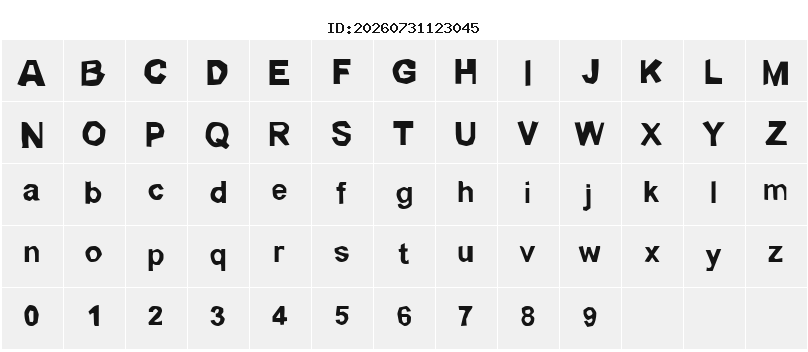
• Font Name: Lickspittle
About Lickspittle.ttf
Lickspittle.ttf is a modern, elegant sans-serif font designed for ultimate readability and visual harmony. Perfect for branding, headlines, web design, and print materials.